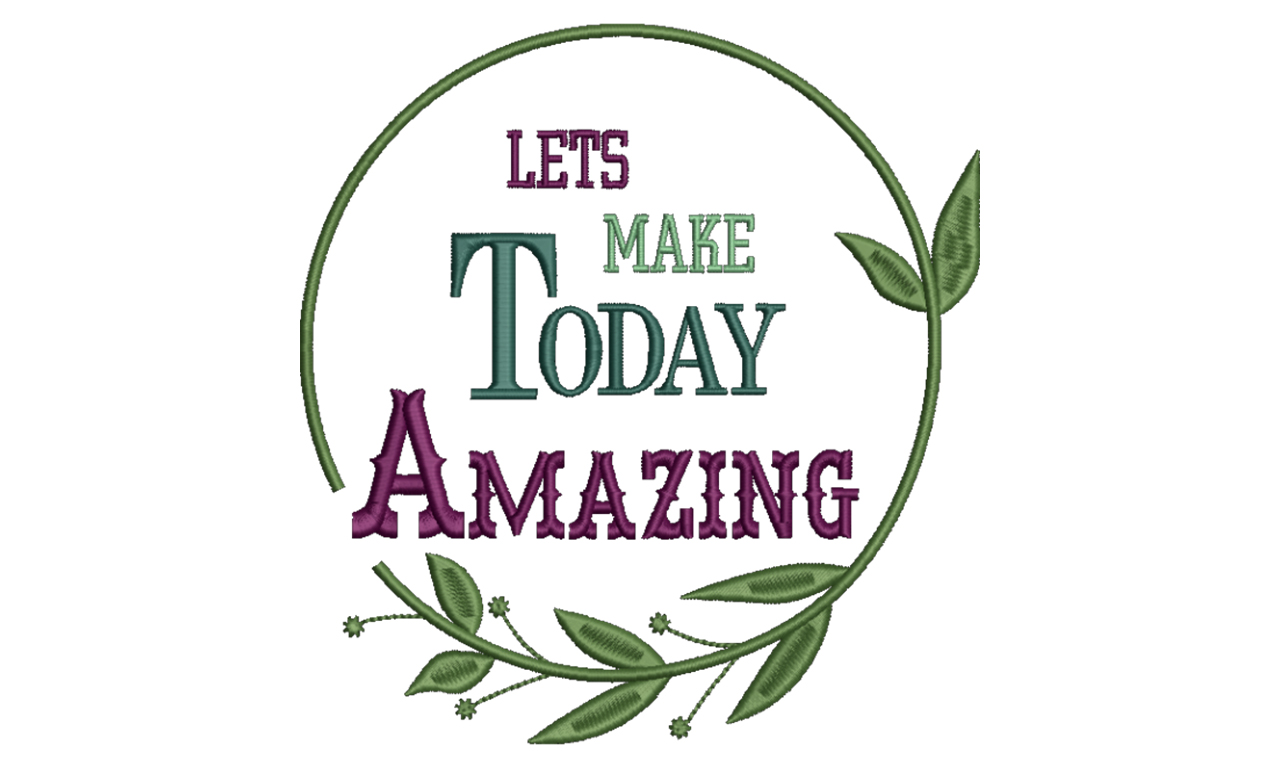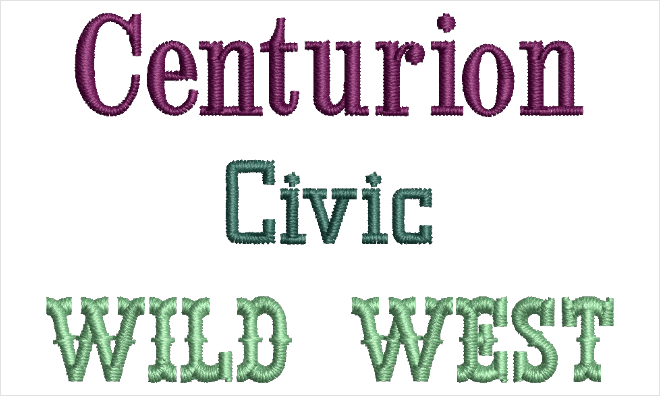
Font Pack #24 - Classic Bold
Everyone likes the classic traditional font but still wants to keep it bold. Centurion works good for multiple lines of text at least 17mm in height. Use a 15-degree slant on Civic to expand the look of this font. Wild West is fun to use for wall art and saying with that western look.
Centurion
Use this font for special ocassions or to give that elegant look.
Civic
Works good for medium height lettering
Wild West
Perfect for single name projects when you want a bold script.